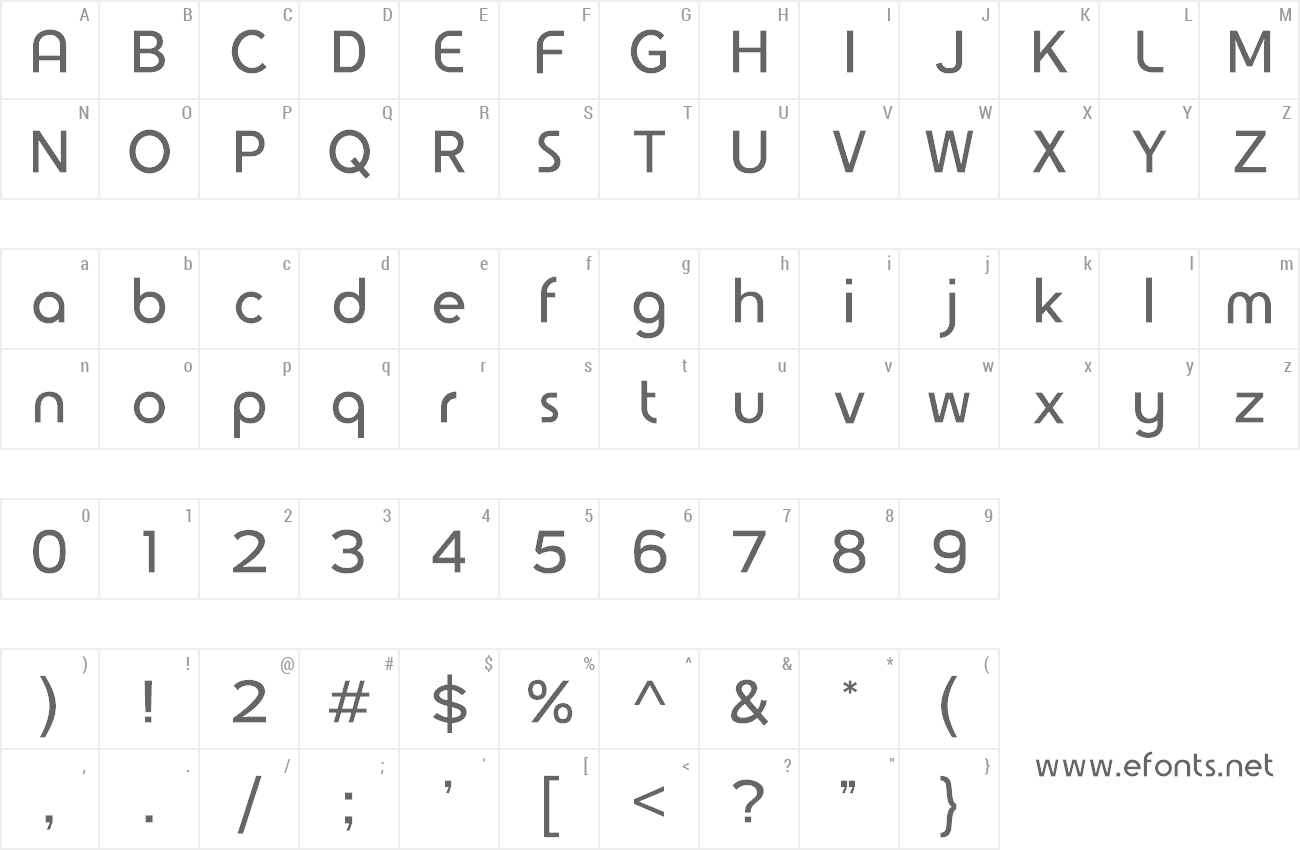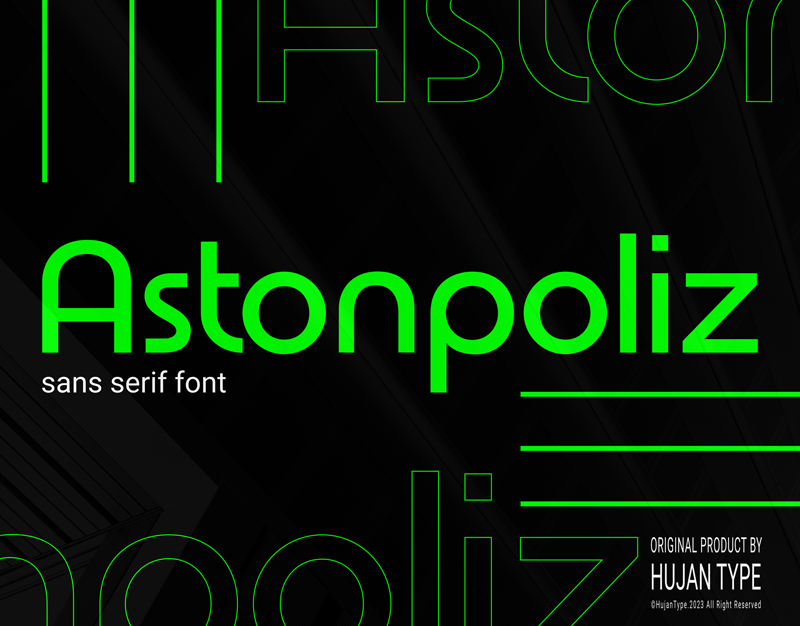
Preview and download Astonpoliz Font. Created by Hujan Type in Basic Sans serif styles with 100% Free license.
Astonpoliz are based on geometric shapes and have no contrast between strokes. This font suitable for your modern style projects. Free for personal and commercial use. I really appreciate your feedback! Tell me why you like it and why you don't. We are waiting for the e-mail : hujantype@gmail.com But, if you want to donate, no matter at what level, we are very grateful. This is Our Paypal : bsetiawanproject39@gmail.com You can download Astonpoliz free font at this link below. http://bit.ly/3S53FMs We hope your feedback. Thanks. Hujan Type |